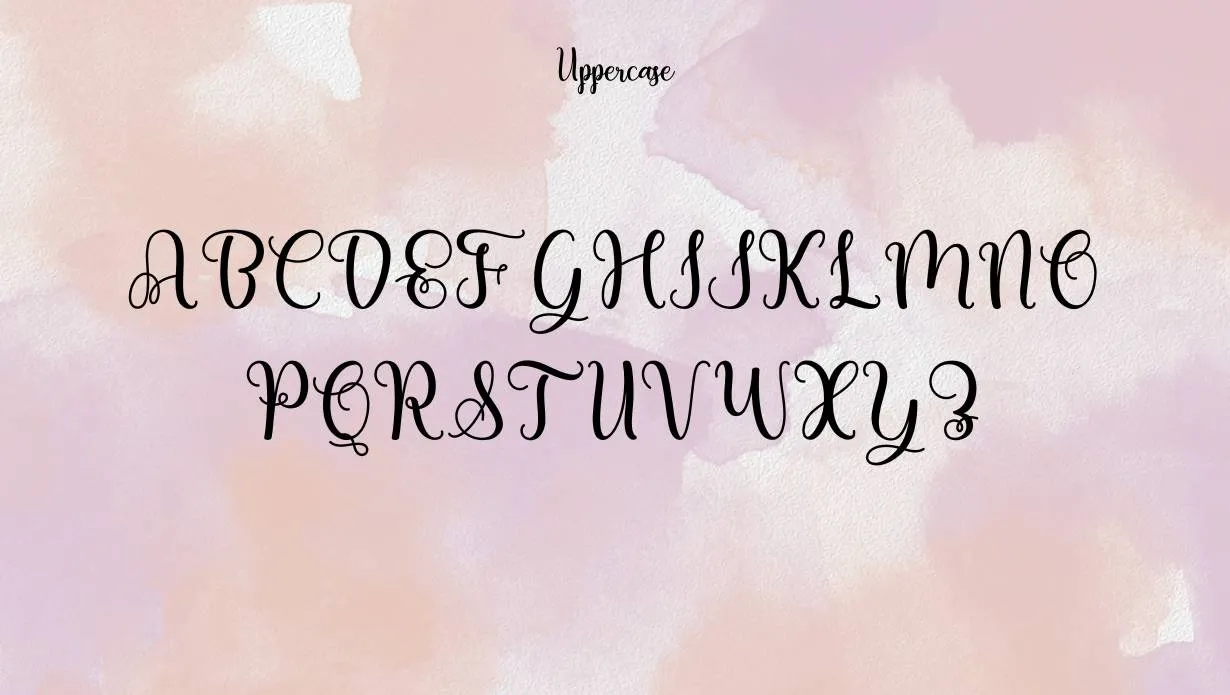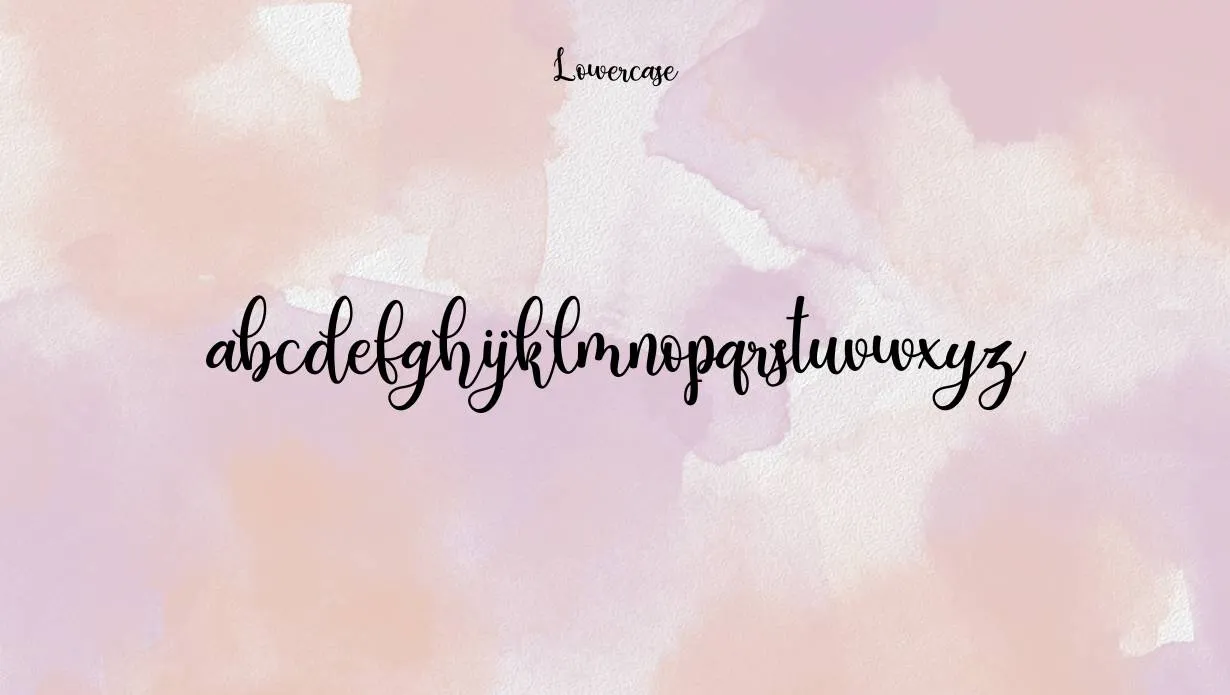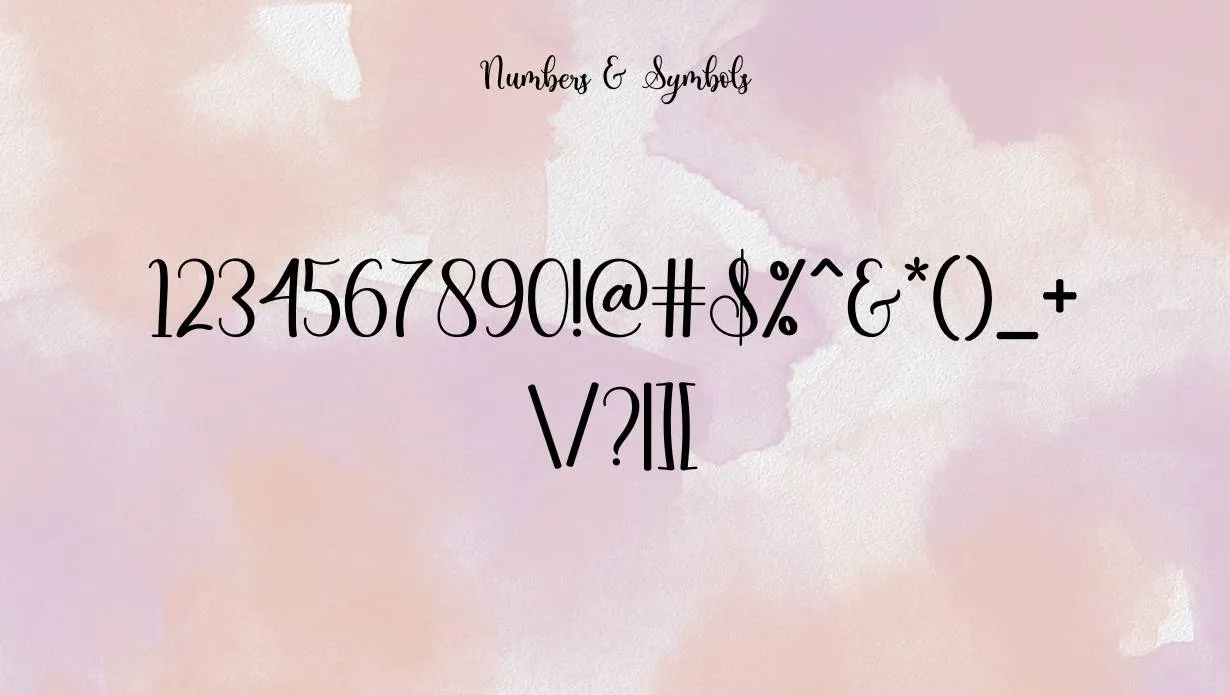
Hello Bucin Font is a Calligraphy font that was crafted by Saiful Anwar and released by Sealoung along with only a style and 339 characters. This typeface features a lovely, romantic, and playful appearance, it has TTF and OTF formats.
This typeface is PUA encoded which means you can use all the glyphs and swashes with no bother.ell suited for all those projects that want to be lovely and have a handcrafted touch in their appearance.